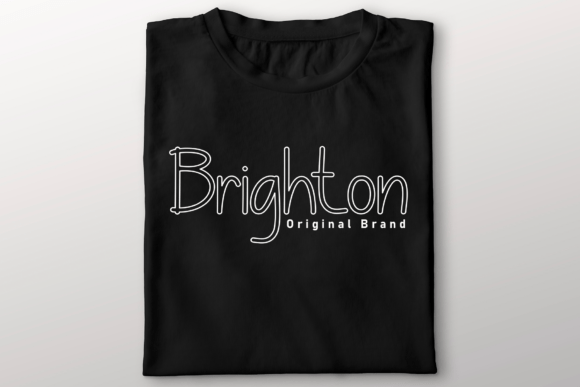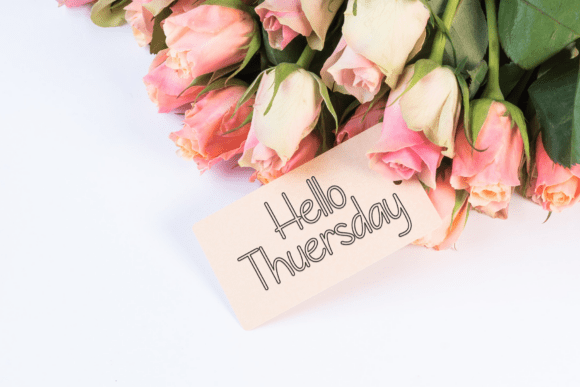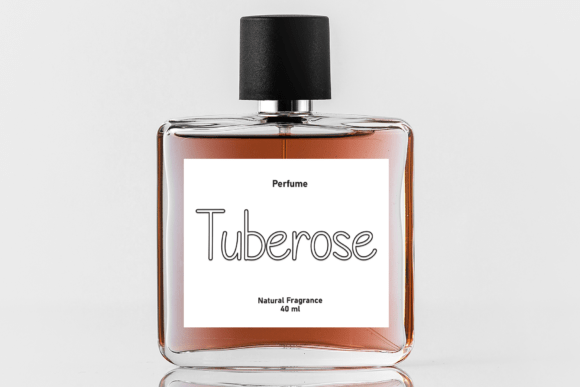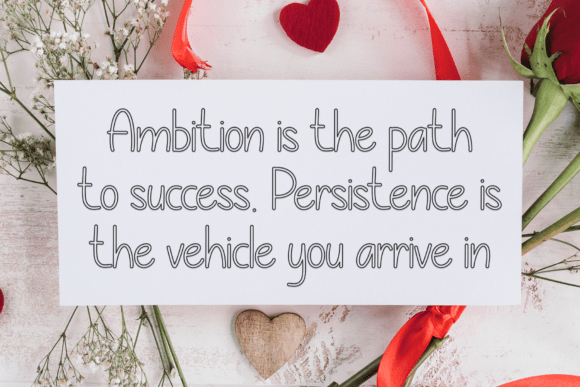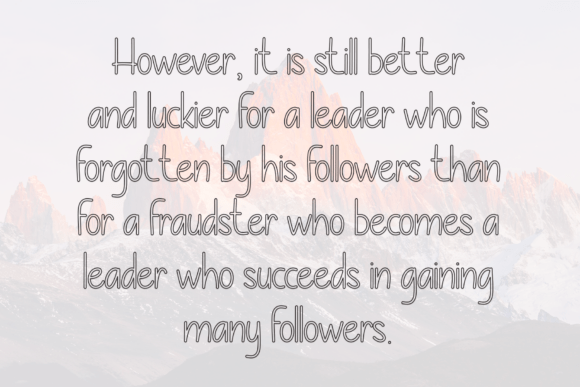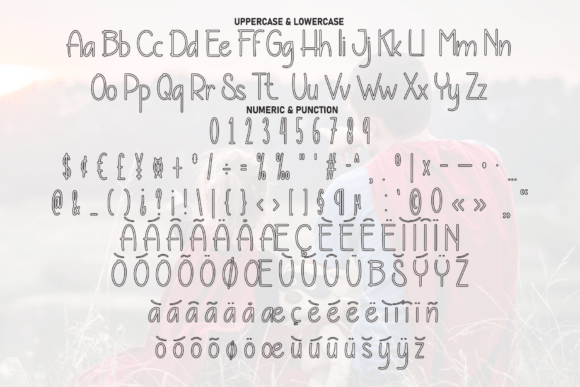
Daddy Font: The Perfect Blend of Casual and Neat for Your Design Projects
In the world of typography, finding the right font can make all the difference in the success of your design project. Whether you’re a professional designer or a crafty DIY enthusiast, the font you choose can elevate your work from ordinary to extraordinary. This is where the Daddy Font comes in – a casual and neat display font designed to bring warmth and clarity to your projects.
The Characteristics of Daddy Font
Daddy Font is characterized by its clean structure and approachable style, making it an ideal choice for a wide range of design applications. Its balanced letterforms offer a perfect blend of readability and charm, ensuring that every message feels genuine and inviting. The font’s design is carefully crafted to provide a warm and friendly feel, making it perfect for branding, headlines, and everyday designs.
Key Features of Daddy Font
- Clean Structure: The font features a clean and well-organized structure, making it easy to read and understand.
- Approachable Style: The approachable style of Daddy Font makes it perfect for designs that require a friendly and inviting tone.
- Balanced Letterforms: The balanced letterforms ensure that the font is highly readable, even at smaller sizes.
- Warm and Friendly Feel: The font’s design provides a warm and friendly feel, making it perfect for a wide range of design applications.
Uses of Daddy Font
Daddy Font is a versatile font that can be used in a variety of design projects, including:
- Branding: The font’s clean and approachable style makes it perfect for branding projects that require a friendly and inviting tone.
- Headlines: The font’s bold and balanced letterforms make it ideal for headlines that require a clear and readable font.
- Everyday Designs: The font’s warm and friendly feel makes it perfect for everyday designs, such as flyers, brochures, and posters.
Benefits of Using Daddy Font
Using Daddy Font in your design projects offers a range of benefits, including:
- Improved Readability: The font’s balanced letterforms and clean structure ensure that your text is highly readable.
- Increased Engagement: The font’s warm and friendly feel can help increase engagement with your audience.
- Enhanced Brand Identity: The font’s approachable style can help enhance your brand identity and make your brand more relatable.
Tips for Using Daddy Font
To get the most out of Daddy Font, here are some tips to keep in mind:
- Use it for Headlines: The font’s bold and balanced letterforms make it perfect for headlines.
- Pair it with Other Fonts: Daddy Font can be paired with other fonts to create a unique and visually appealing design.
- Experiment with Different Sizes: The font’s clean structure and balanced letterforms ensure that it remains readable at different sizes.
Daddy Font is a versatile and highly effective font that can elevate your design projects to the next level. Its clean structure, approachable style, and balanced letterforms make it perfect for a wide range of design applications. Whether you’re a professional designer or a crafty DIY enthusiast, Daddy Font is a great choice for any project that requires a friendly and inviting tone.